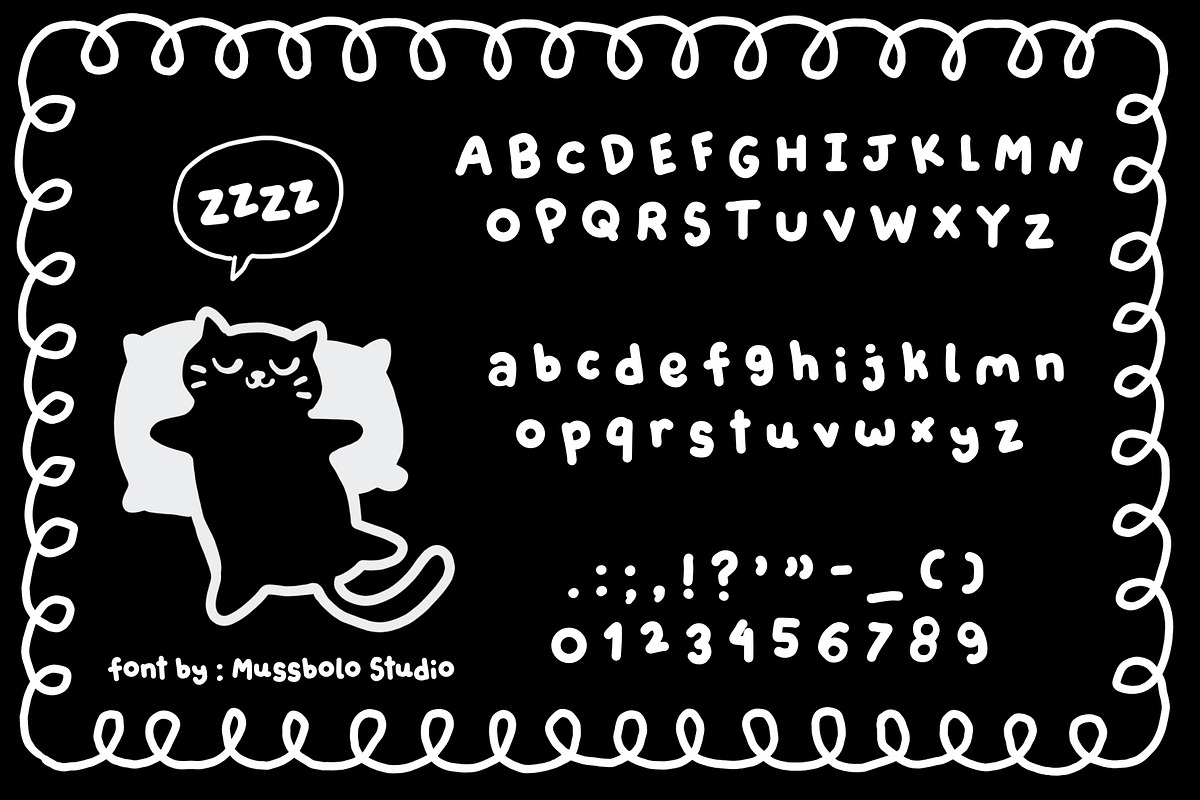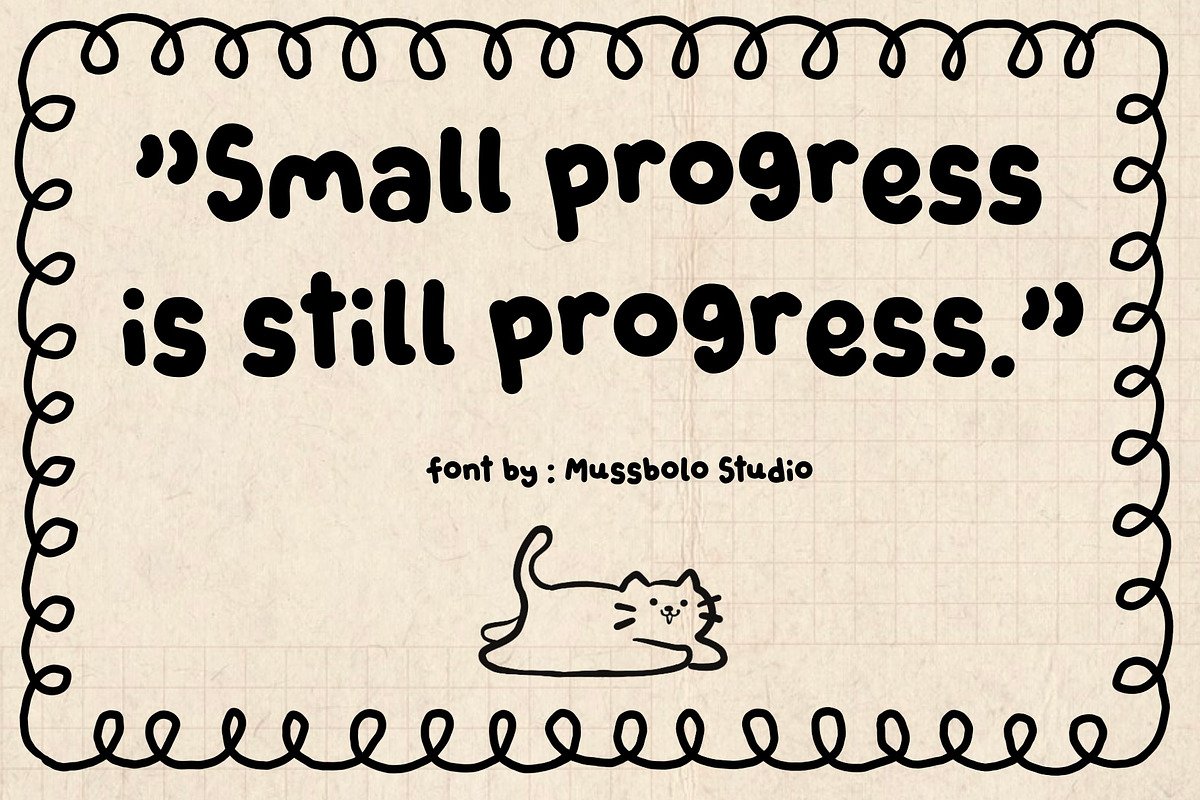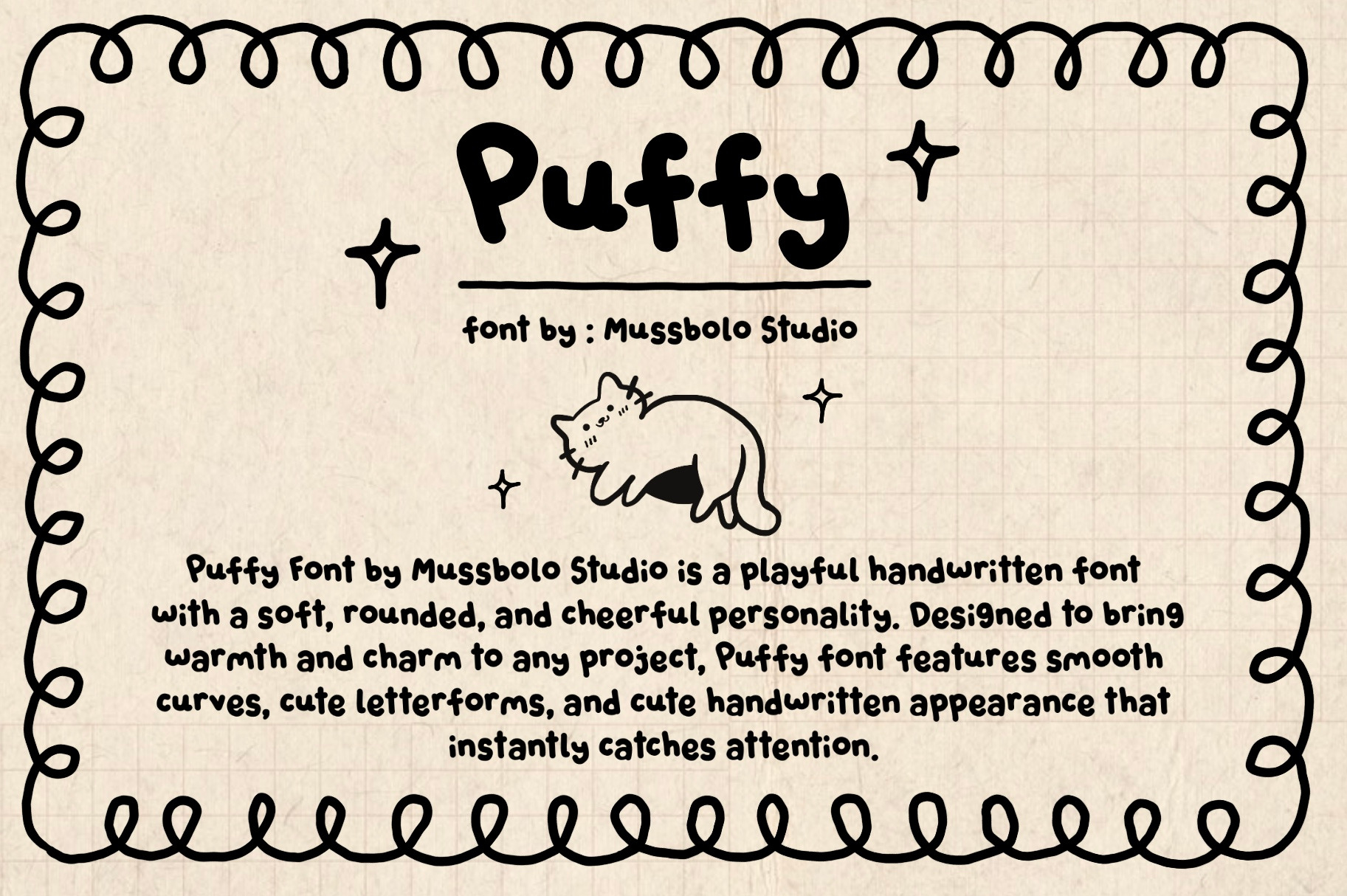
Puffy Handwritten Cute Font
Puffy by Mussbolo Studio is a playful handwritten font with a soft, rounded, and playful personality. Puffy font features smooth curves, cute letterform & handwritten appearance that instantly catches attention.
Uppercase & lowercase letters
Basic punctuation
Social media content/vlog/feed
Branding & logo
Packaging
Digital planners
Quotes & aesthetic posts
Invitations
Creative projects